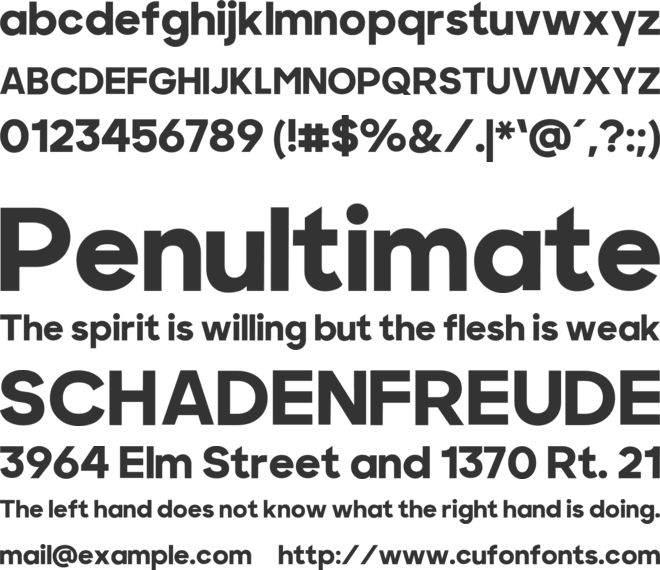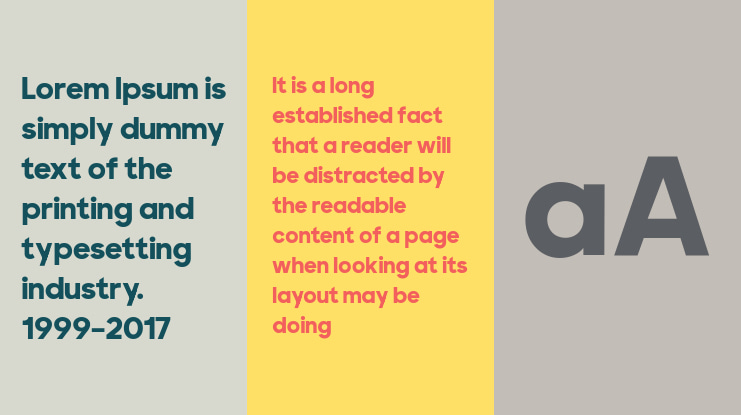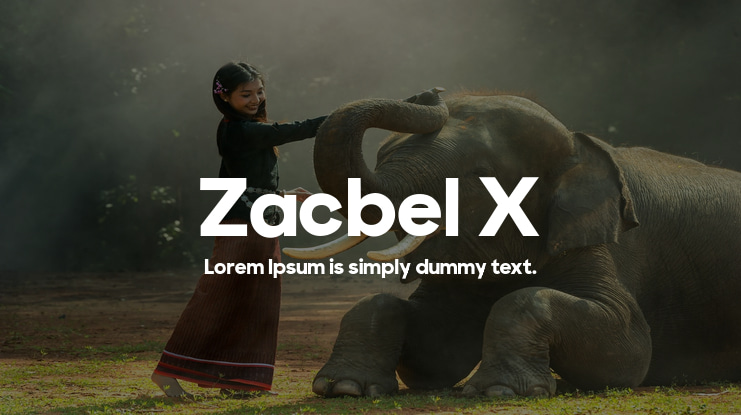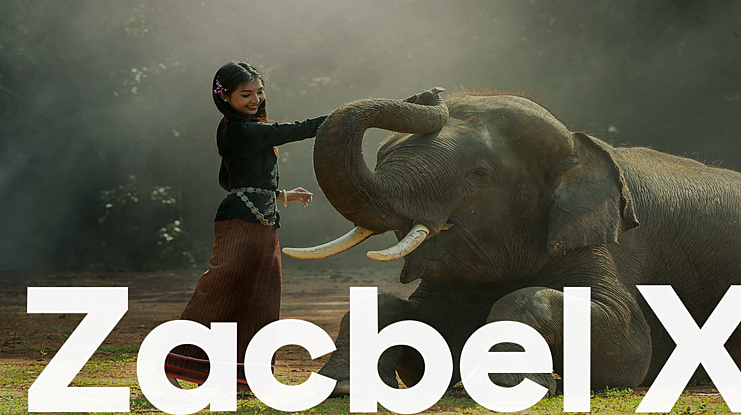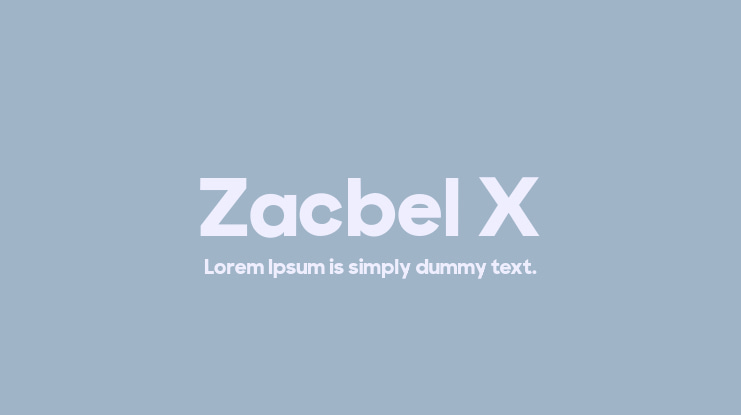
Zacbel X Font Family
This is a brand new digital sans serif typeface in geometric style with many faces and possibilities with good proportions forms. Perfectly suited for graphic design and any display use. It could easily work for web, signage, corporate as well as for editorial design.